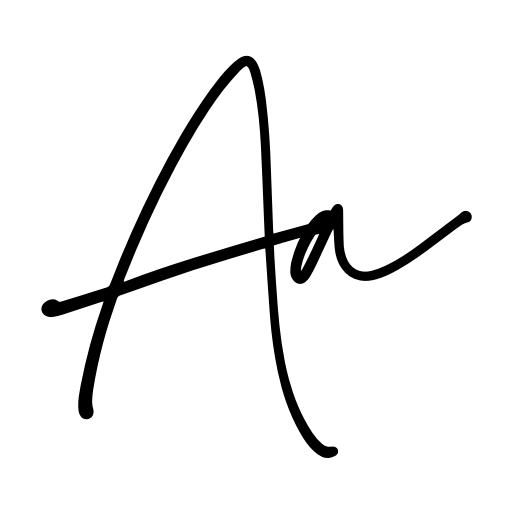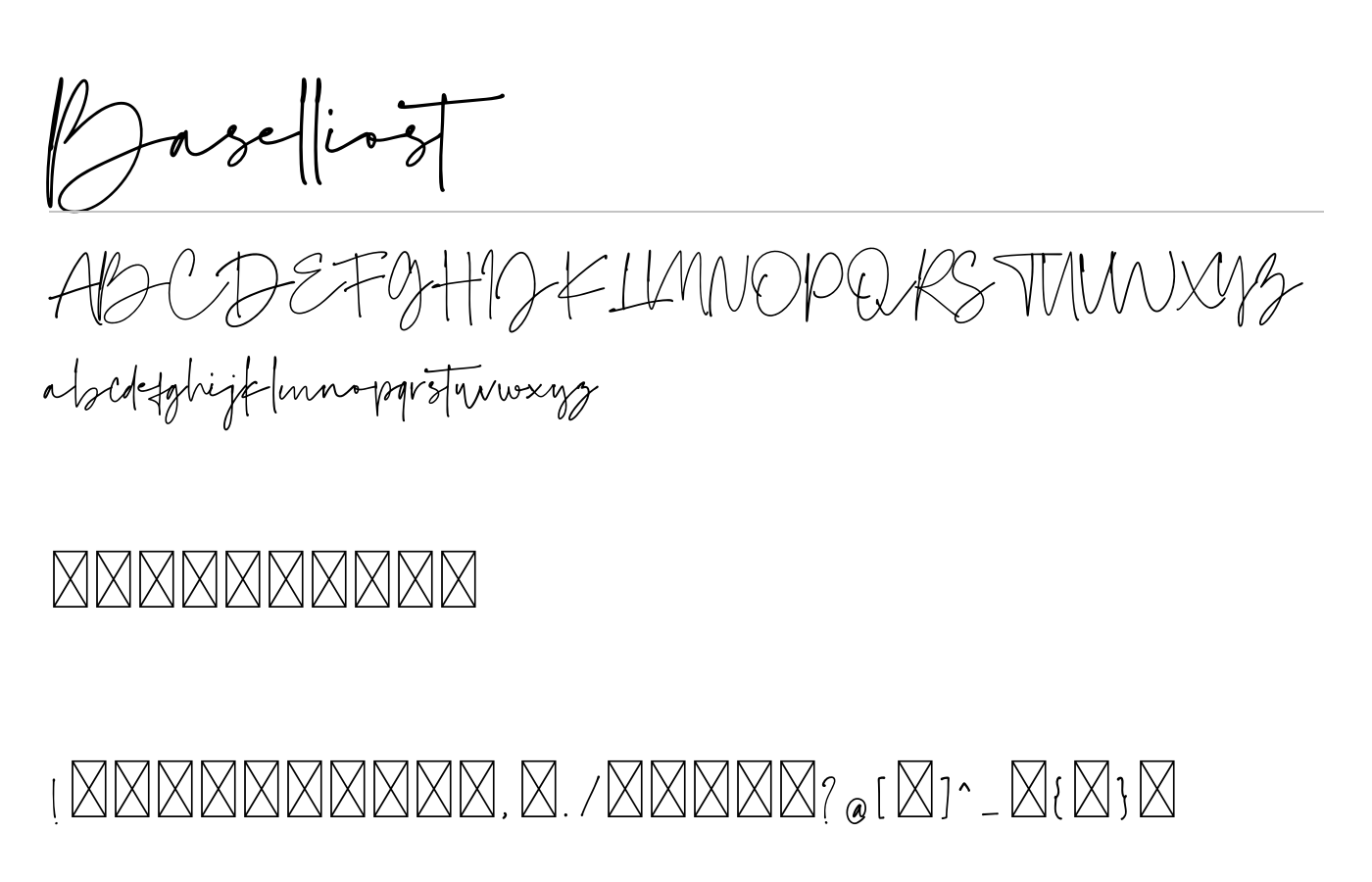
Baselliost is a delicate, handwritten script font characterized by its thin, flowing lines and tall, narrow letterforms. It exudes a modern and elegant vibe, perfect for adding a personal, artistic touch to branding, invitations, and social media graphics. Its airy, casual style makes it ideal for projects seeking a graceful yet approachable look.
Baselliost Font
About Baselliost Font